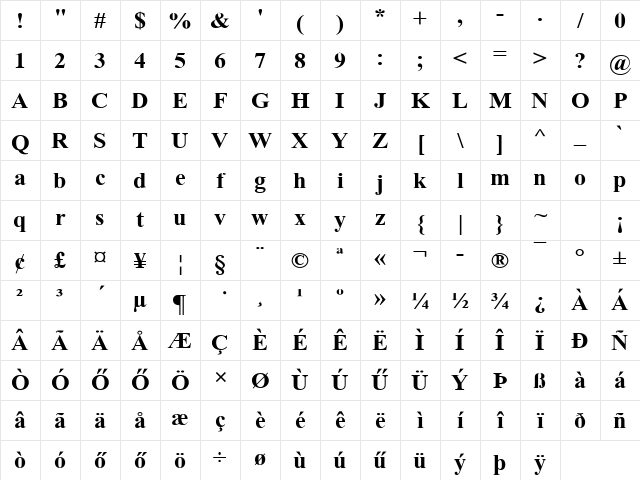
Complete H-Times New Roman Bold glyph index. Displaying only characters natively supported by H-Times New Roman Bold font.
H-Times New Roman is a composed and adaptable typeface that performs quietly and consistently across a wide range of design contexts. Its bold stroke weight gives it real presence on the page.